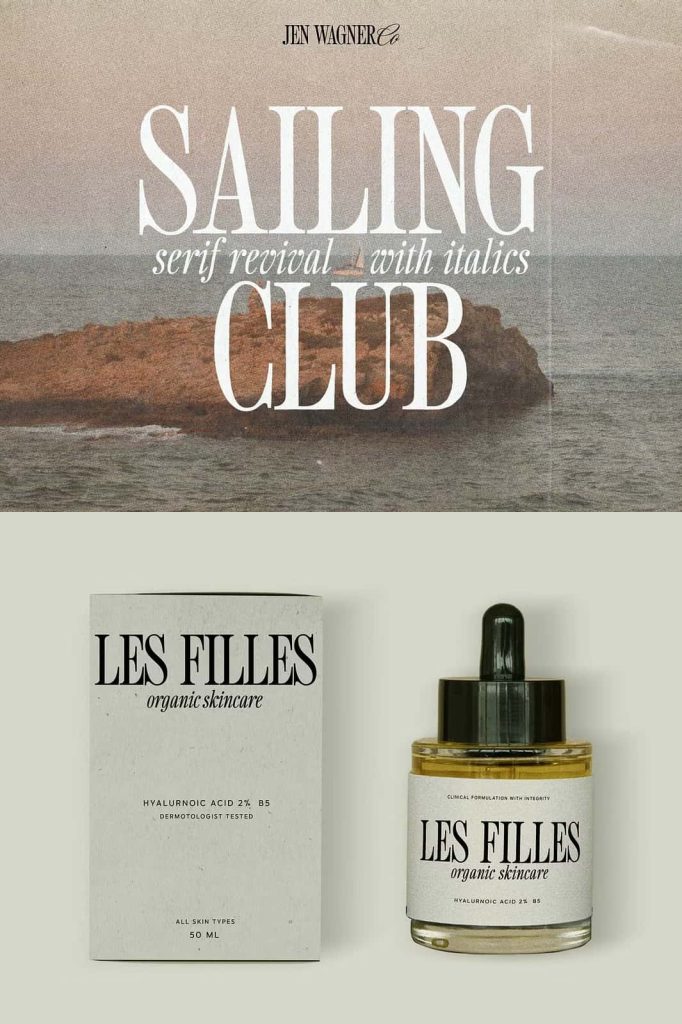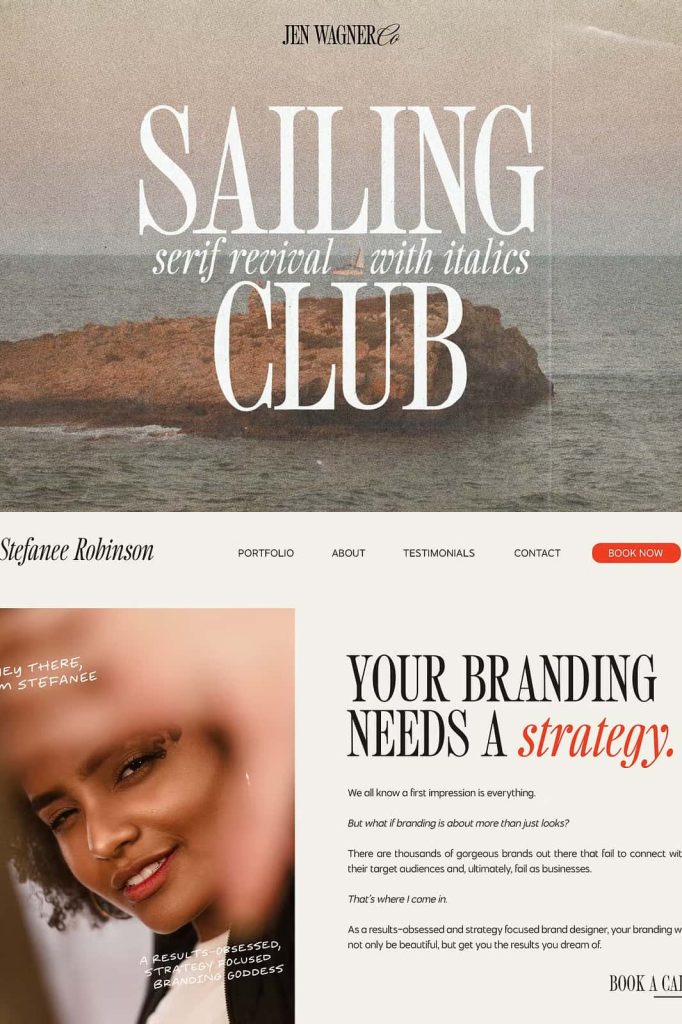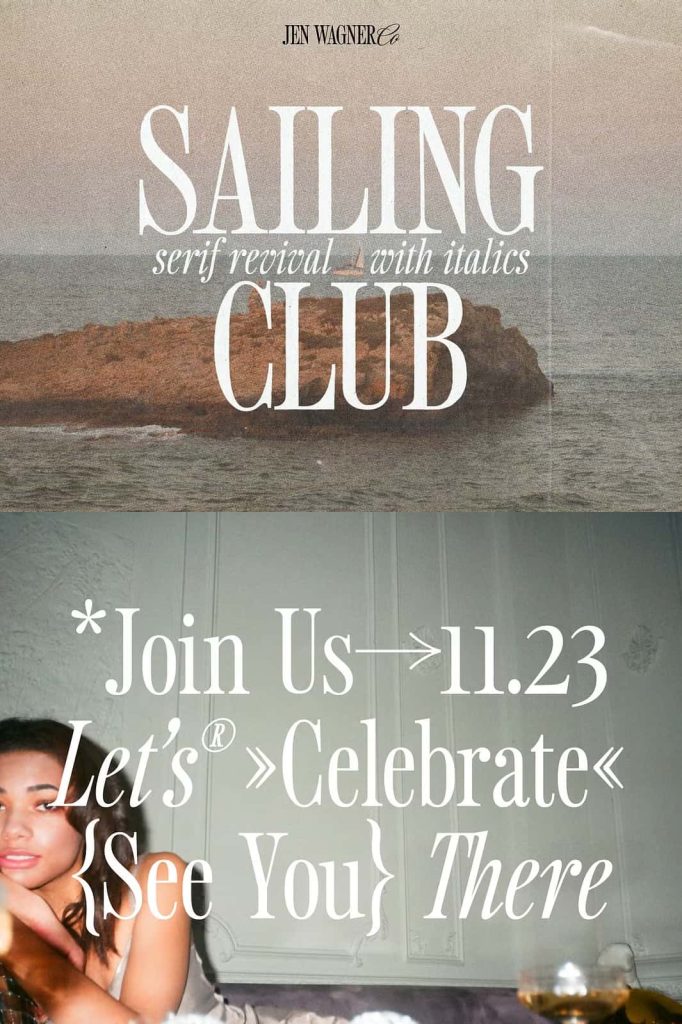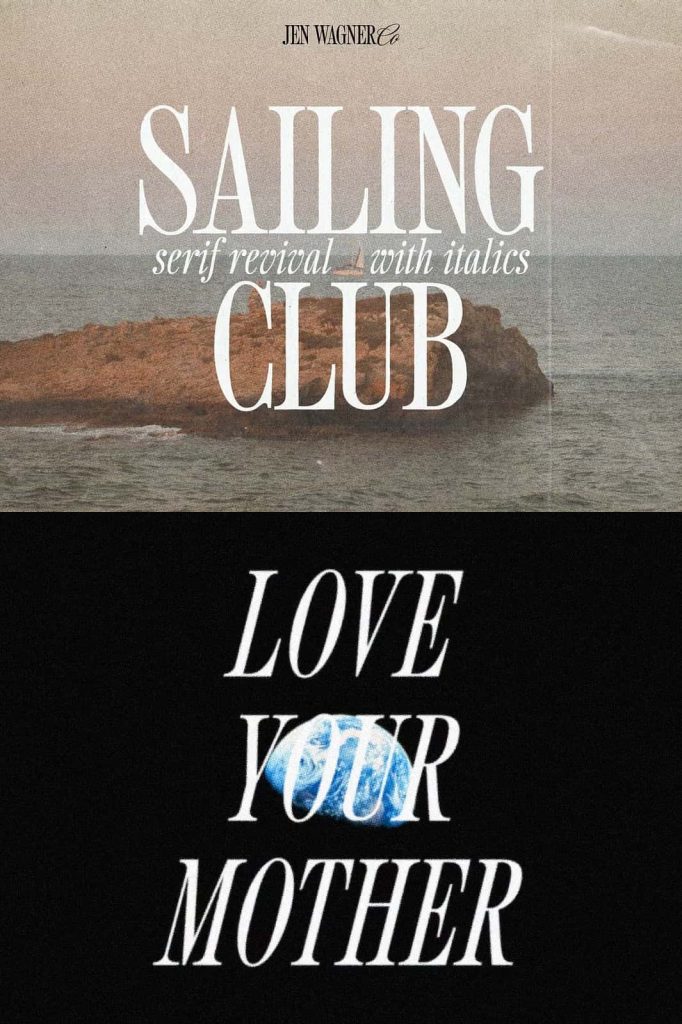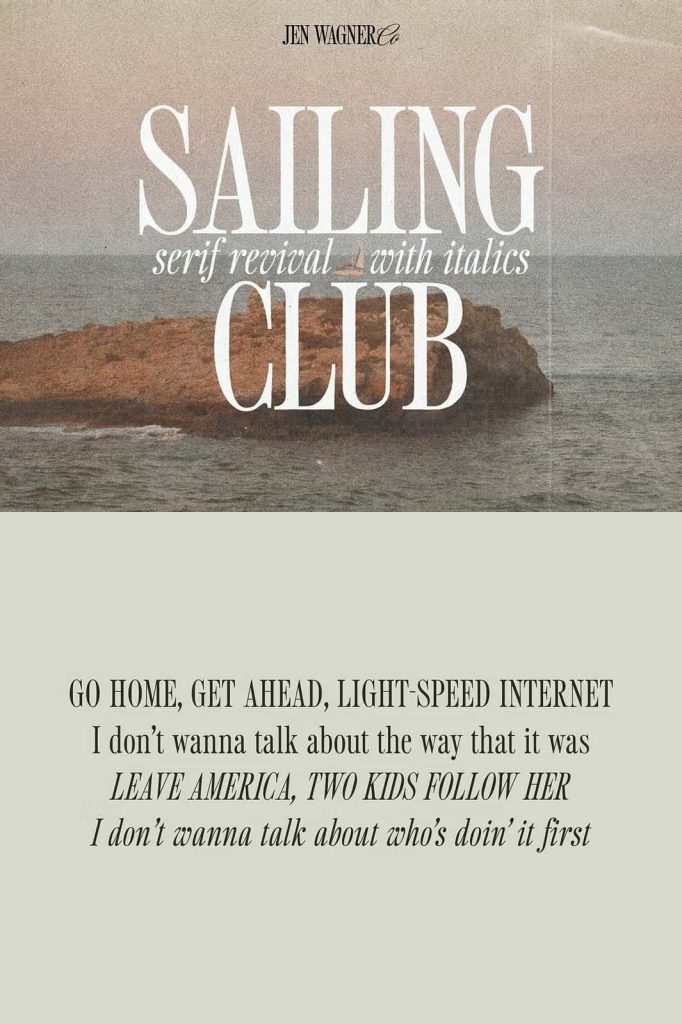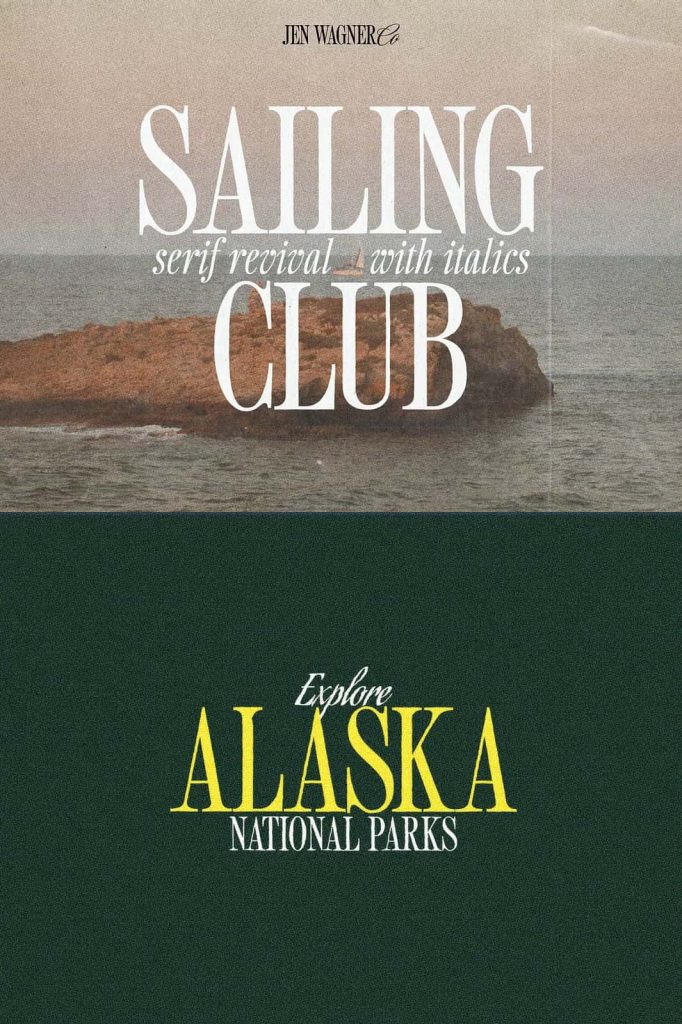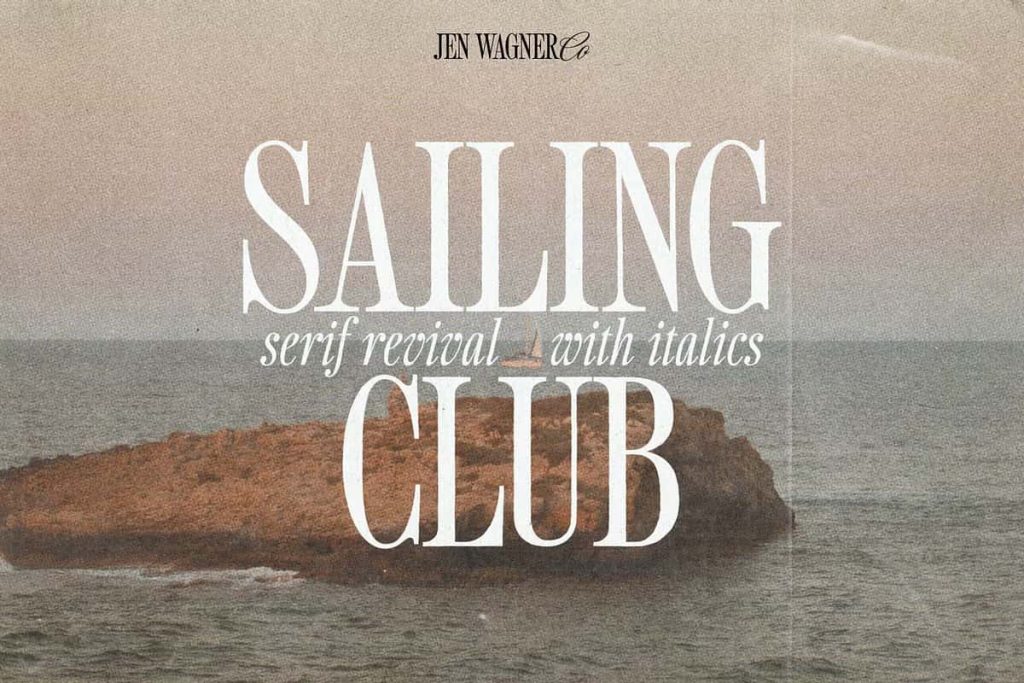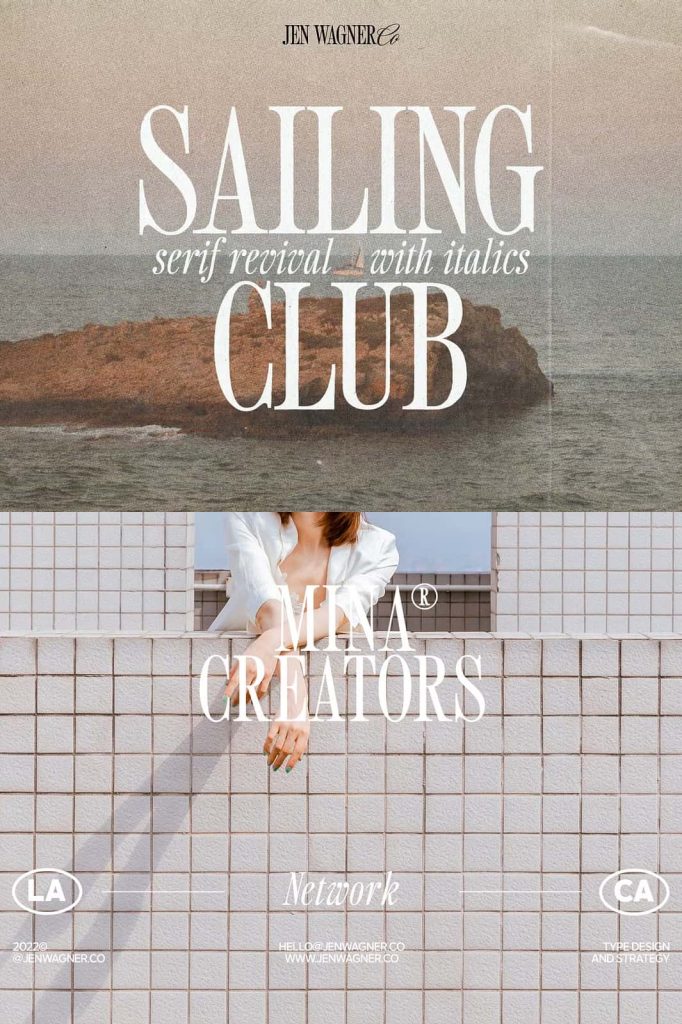
Sailing Club: A Nostalgic Serif Revival Inspired by Vintage Collegiate Style
Sailing Club introduces a refreshing yet nostalgic serif typeface that effortlessly blends vintage collegiate charm with modern design sensibilities. This newly crafted serif revival captures the warmth, personality, and character of classic retro lettering, making it the perfect font for creatives who want to bring a hint of old-school authenticity into their projects. From apparel design to branding, Sailing Club delivers a familiar, comforting style that evokes memories of well-worn sweatshirts, campus pride, and timeless Americana aesthetics.
A Typeface That Revives the Golden Era of Collegiate Design
Sailing Club draws its inspiration from the unforgettable design era of vintage university lettering and athletic-style typography. Its structure blends bold serif shapes with soft curves and traditional proportions, creating an instantly recognizable style reminiscent of retro college sweatshirts, banners, and yearbooks. The font brings back the days when typography was crafted with distinct character, giving each letter a personality that feels well-loved and full of history.
This rich nostalgic energy makes Sailing Club a standout choice for designers looking to infuse their work with heritage-driven style. Its strong serifs, classic angles, and slightly weathered spirit create a design language that captures both authenticity and craftsmanship. Even though it is inspired by the past, the typeface maintains a fresh and polished look that performs beautifully in contemporary settings.
Perfect for Branding, Apparel, Logos, Posters, and More
Sailing Club excels in a wide range of applications, especially those that benefit from a retro or collegiate-inspired aesthetic. Its bold serif structure makes it ideal for apparel design, particularly for creating stylish sweatshirts, T-shirts, varsity jackets, and merchandise with a vintage academic flair. If you aim to reproduce the classic look of university branding, sports team identity, or club insignia, this typeface delivers outstanding visual impact.
Beyond apparel, Sailing Club thrives in branding projects where designers want to convey reliability, tradition, and nostalgia. Its structure is perfectly suited for logos, product packaging, editorial headlines, posters, signage, and promotional materials. Whether your project involves a lifestyle brand, a retro-themed café, a sports club, or an editorial spread, this typeface adds strong character and visual authenticity.
A Nostalgic Serif with Modern Versatility
While Sailing Club celebrates the charm of the past, it also incorporates the clarity and readability needed for modern design. The font performs beautifully in both digital and print environments, making it an extremely versatile typographic asset. Designers can use it at large sizes for bold, statement-making headlines, or apply it in smaller text for subtle, sophisticated visual interest.
Its personality resonates with anyone who appreciates classic American design, vintage sports aesthetics, or retro academic identity. The combination of nostalgic spirit and modern functionality allows Sailing Club to stand out in today’s creative landscape while remaining true to its heritage roots.
Bring Retro Collegiate Charm to Your Creative Projects
If you are looking for a serif typeface that embodies nostalgia, personality, and vintage collegiate energy, Sailing Club is the ideal choice. Its revival of classic retro lettering will inspire you to create eye-catching designs filled with authenticity and style. From branding to apparel, editorial layouts to visual storytelling, this font adds depth and emotion to every letter.
Let Sailing Club elevate your next project with its timeless charm, bold character, and nostalgic beauty. Whether you are designing modern merchandise or recreating vintage academic aesthetics, this font provides the perfect foundation for strong and memorable typography.